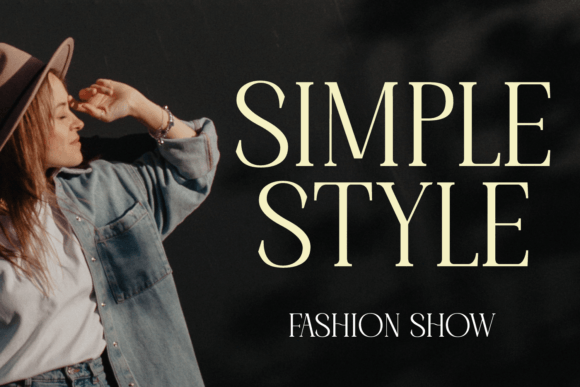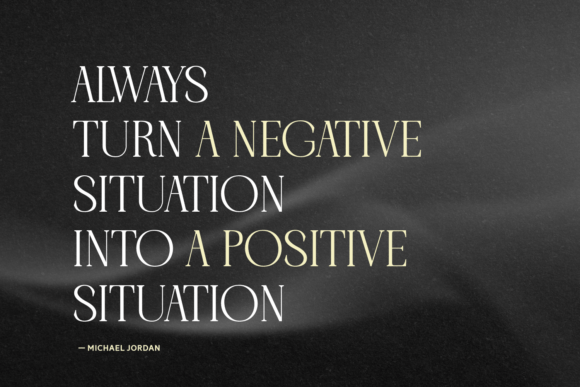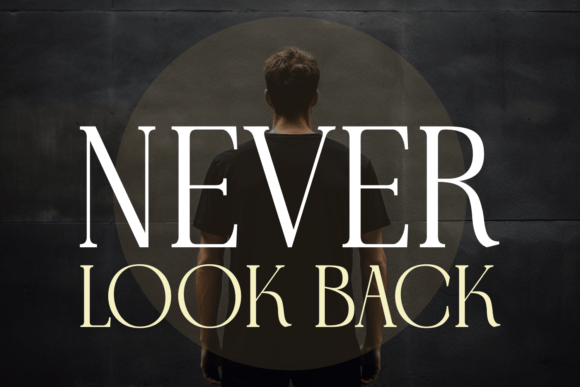
Introducing Getsoma Font: Elevate Your Designs with Elegance and Readability
In the world of typography, a font can make or break a design. For designers and crafters seeking a modern serif font that exudes elegance and readability, Getsoma is an exceptional choice. This versatile font seamlessly blends clean lines with stylish curves, making it perfect for a wide range of applications, from print to digital media.
The Characteristics of Getsoma Font
Getsoma is a thoughtfully crafted serif font that boasts a unique combination of modernity and classic sophistication. Its key features include:
• Clean Lines: Getsoma’s lines are meticulously designed to provide clarity and precision, ensuring that your text is easily readable, even at smaller sizes.
• Stylish Curves: The font’s curves add a touch of elegance and refinement, making it ideal for designs that require a bit of flair.
• Serif Details: The subtle serif details enhance the font’s classic feel while maintaining a modern edge.
Getsoma’s versatility makes it suitable for a variety of design projects. Here are some of the areas where Getsoma truly shines:
• Headlines: Getsoma’s stylish and clean design makes it perfect for headlines, adding a touch of sophistication to any layout.
• Invitations: Whether you’re designing wedding invitations, event invites, or formal announcements, Getsoma’s elegant feel ensures your designs are both refined and memorable.
• Branding: For businesses looking to establish a professional and modern brand identity, Getsoma is an excellent choice. Its unique blend of elegance and readability helps create a lasting impression.
• Print Media: From brochures and magazines to books and newspapers, Getsoma’s clear and stylish design enhances the readability and aesthetic appeal of print materials.
• Digital Media: Getsoma also performs exceptionally well in digital environments, including websites, blogs, and social media graphics, ensuring your online content stands out.
Why Choose Getsoma Font?
With so many fonts available, why should Getsoma be your go-to choice? Here are a few compelling reasons:
• Readability: Getsoma’s design prioritizes readability without sacrificing style, making it perfect for both body text and headlines.
• Elegance: The font’s modern serif design adds a level of sophistication to any project, helping you create visually appealing designs.
• Versatility: Getsoma’s adaptability means you can use it across various design applications, from print and digital to branding and advertising.
• Uniqueness: While Getsoma is rooted in classic serif traditions, its modern twist sets it apart from more traditional fonts, giving your designs a distinctive edge.
Tips for Using Getsoma Font Effectively
To get the most out of Getsoma, consider the following tips:
• Pair with Complementary Fonts: Combine Getsoma with sans-serif fonts for contrast or with other serif fonts for a layered look.
• Adjust Line Spacing: For body text, ensure adequate line spacing to enhance readability.
• Experiment with Sizes: Use Getsoma in various sizes to create visual hierarchy and emphasize key information.
• Utilize Font Weights: If available, experiment with different font weights to add depth and emphasis to your designs.
Getsoma font is a powerful tool for designers and crafters looking to elevate their projects with a modern serif font that combines elegance and readability. Its clean lines, stylish curves, and versatile nature make it an excellent choice for a wide range of applications, from headlines and invitations to branding and digital media. By incorporating Getsoma into your design toolkit, you’ll be able to create visually stunning and highly readable content that leaves a lasting impression.
Whether you’re a seasoned designer or a crafting enthusiast, Getsoma is sure to become a favorite in your typography arsenal. Explore the possibilities with Getsoma today and discover how this exceptional font can transform your designs.